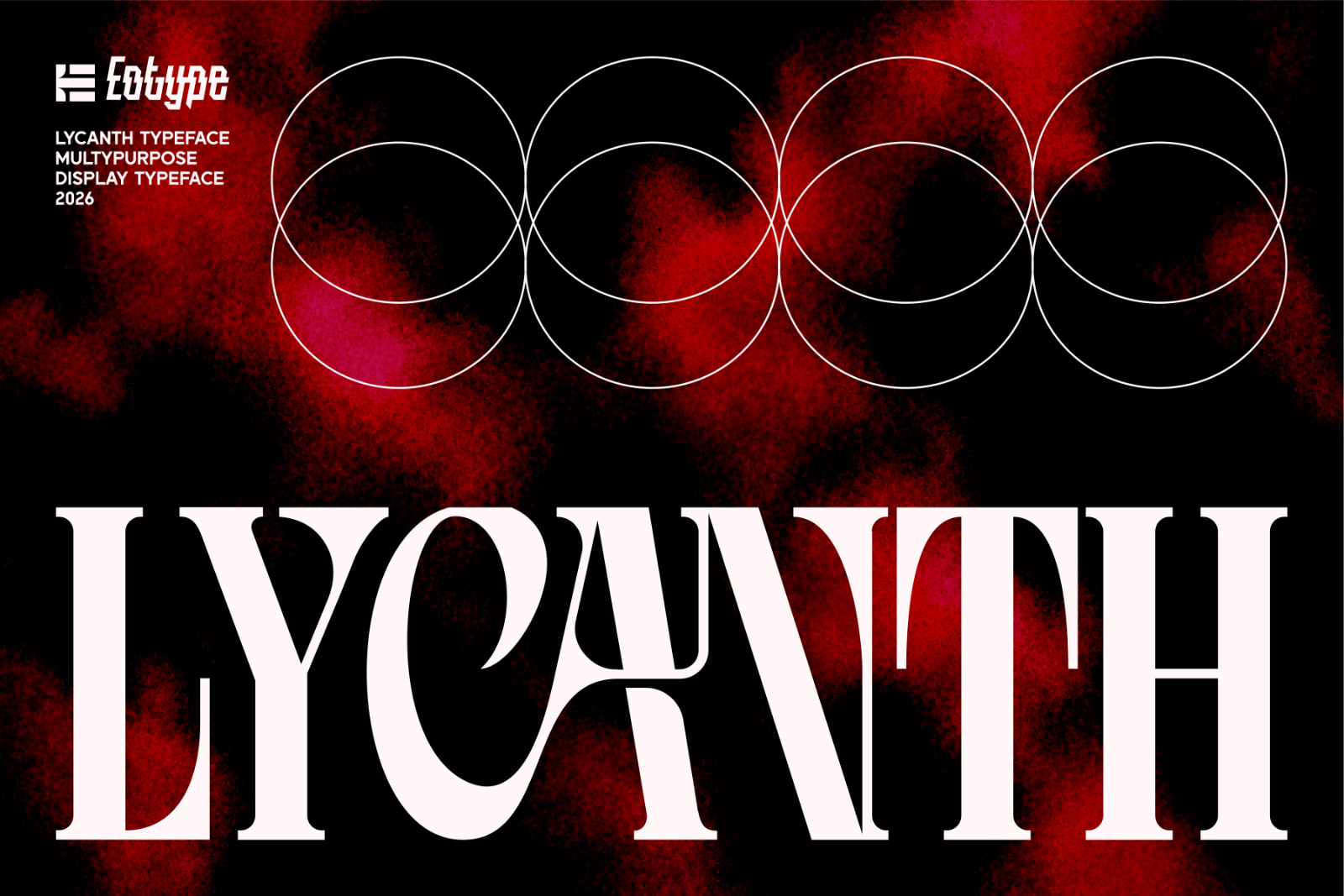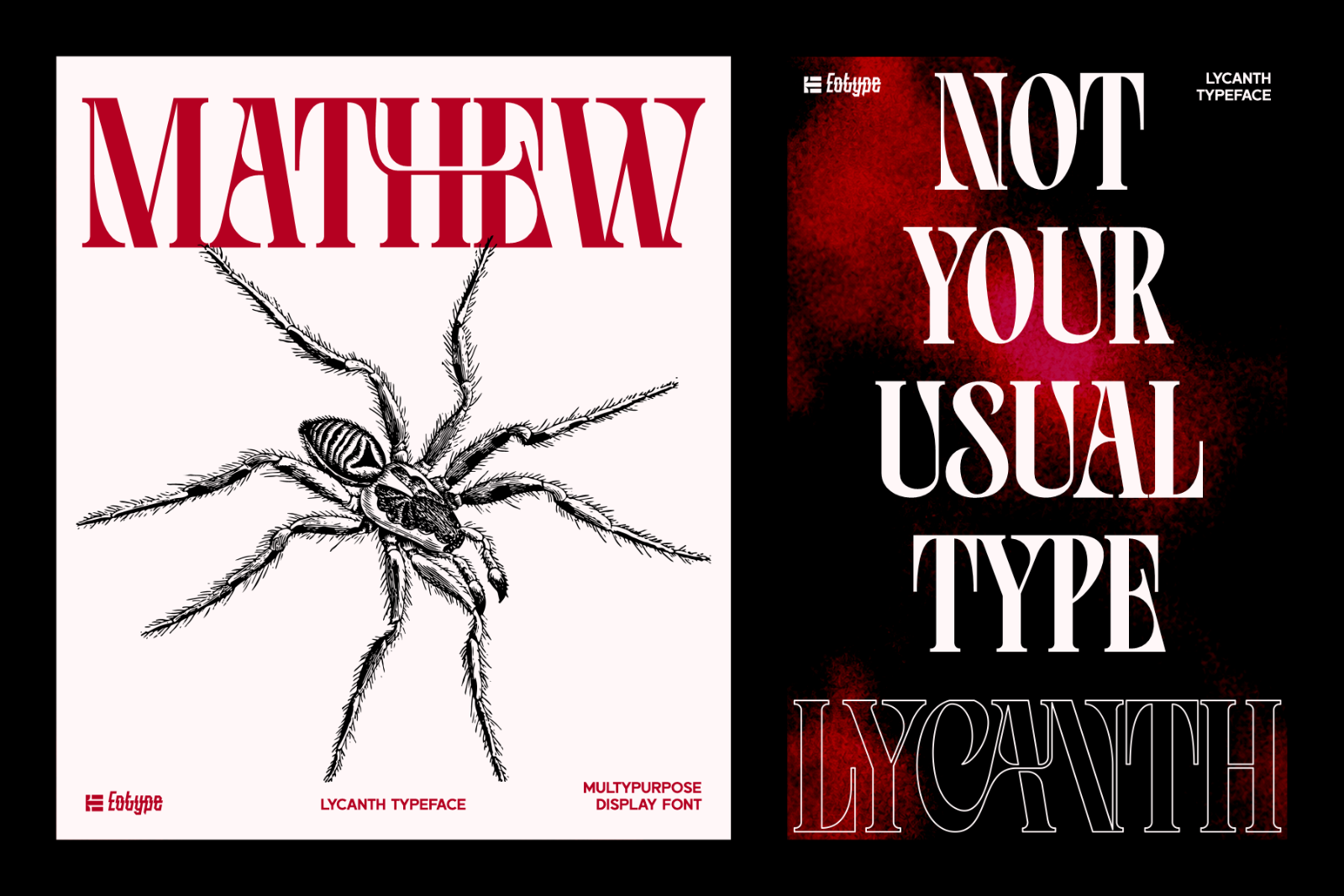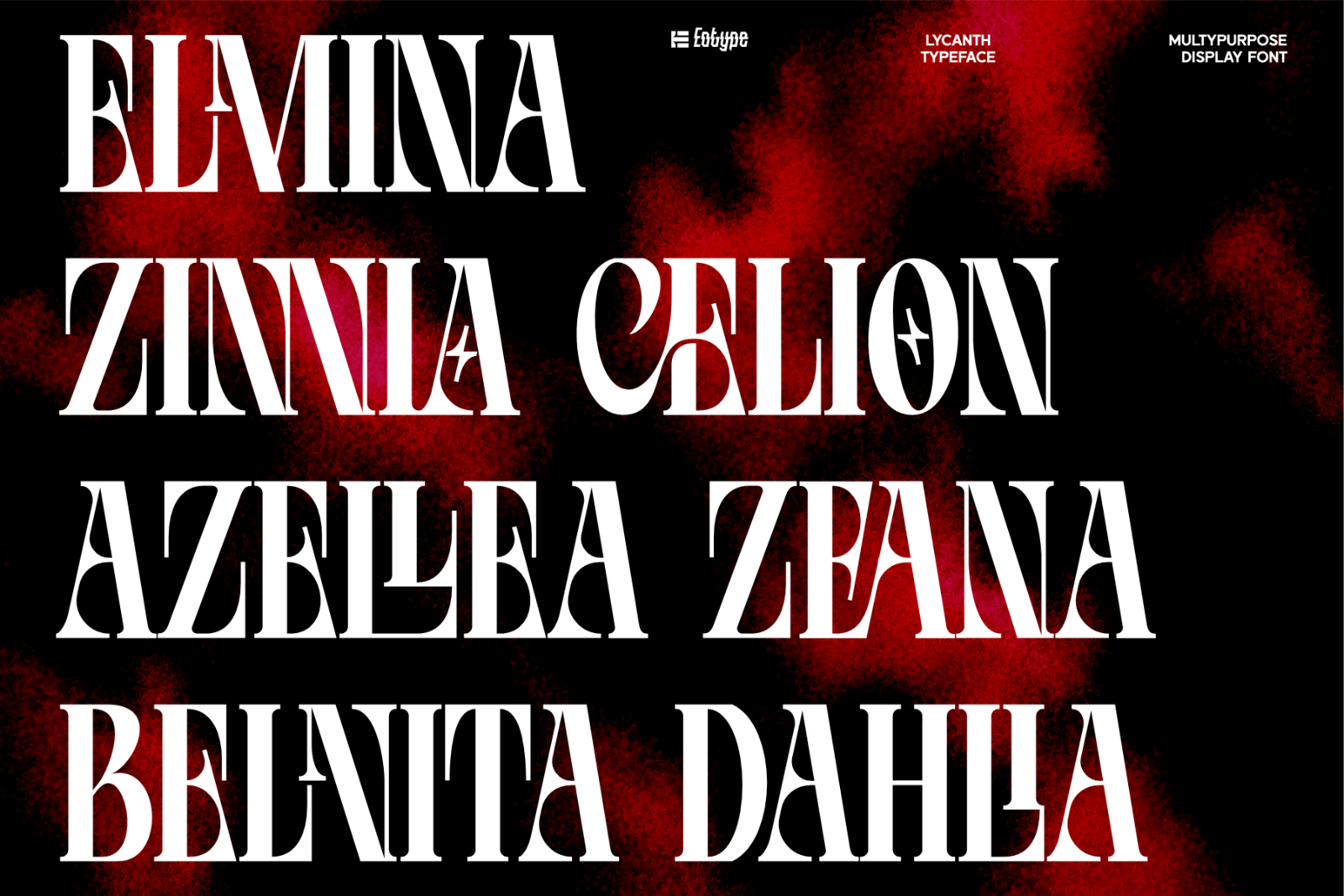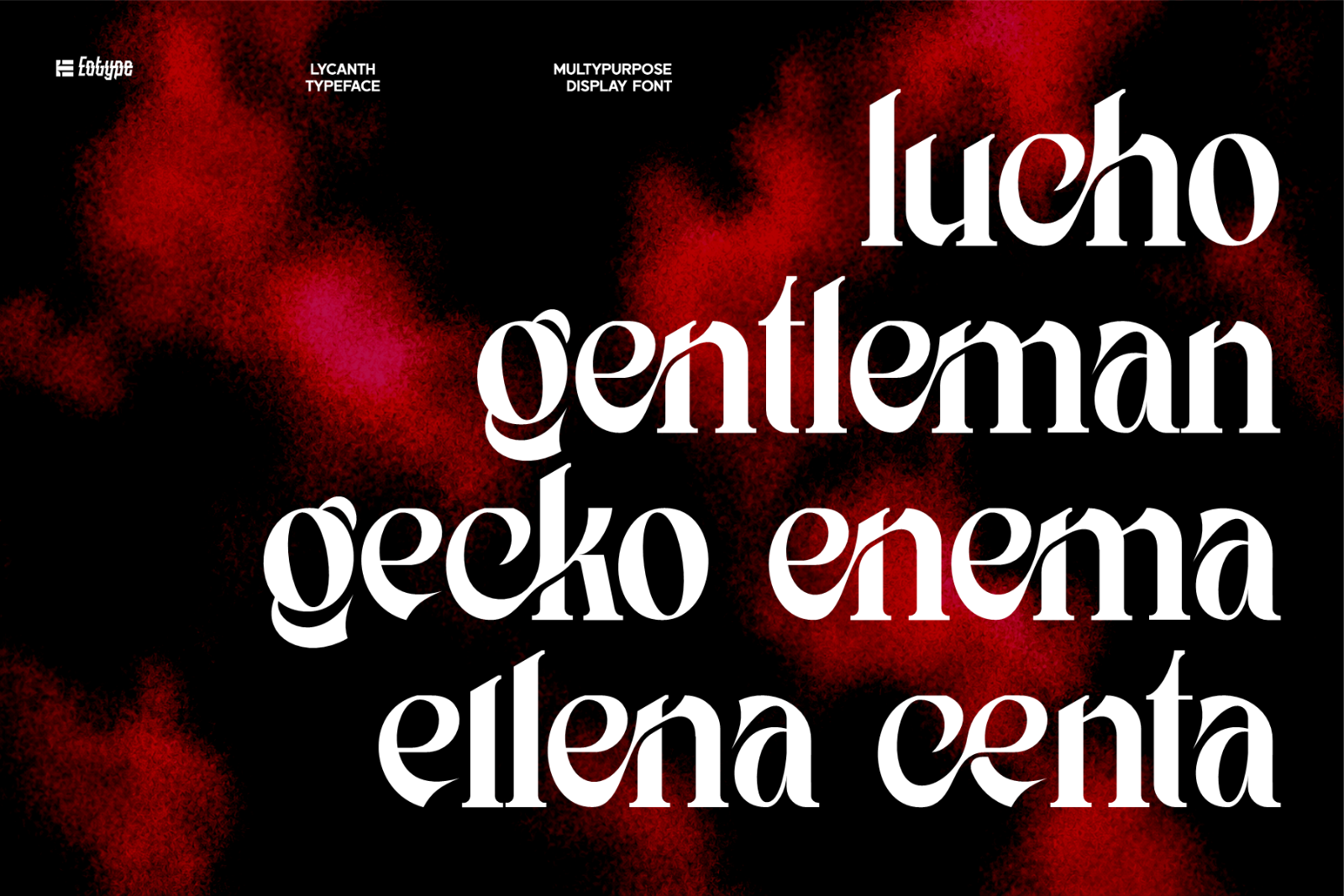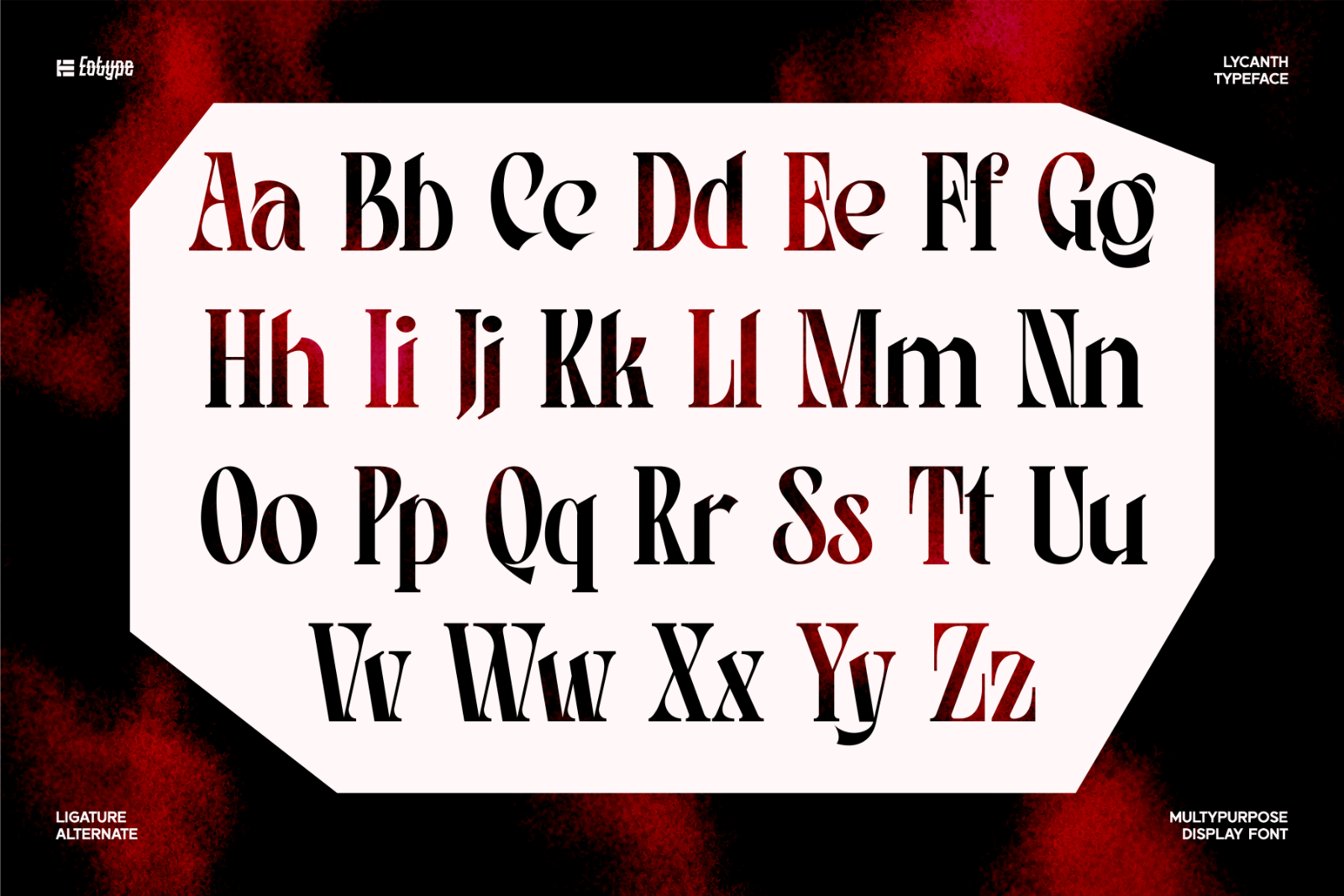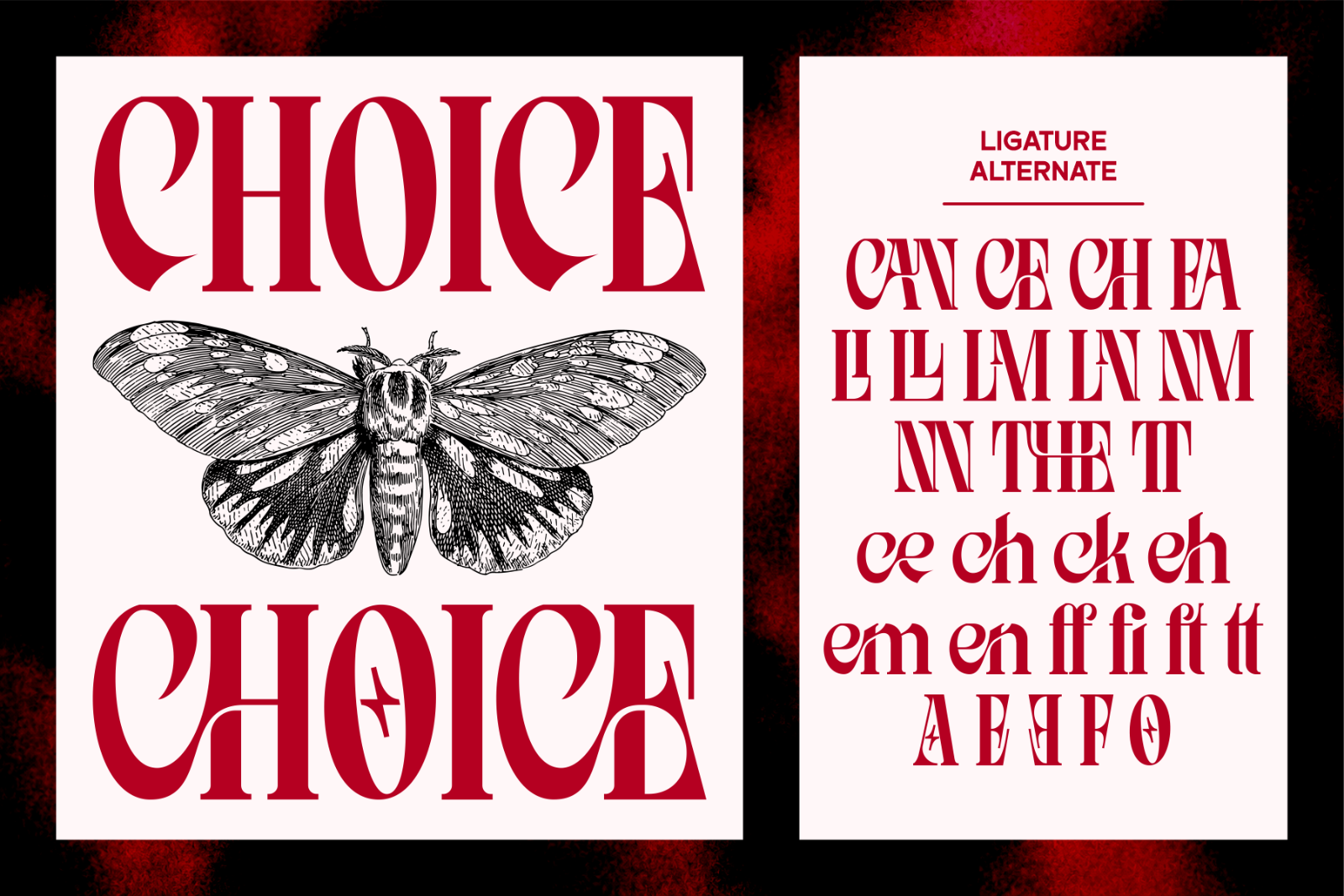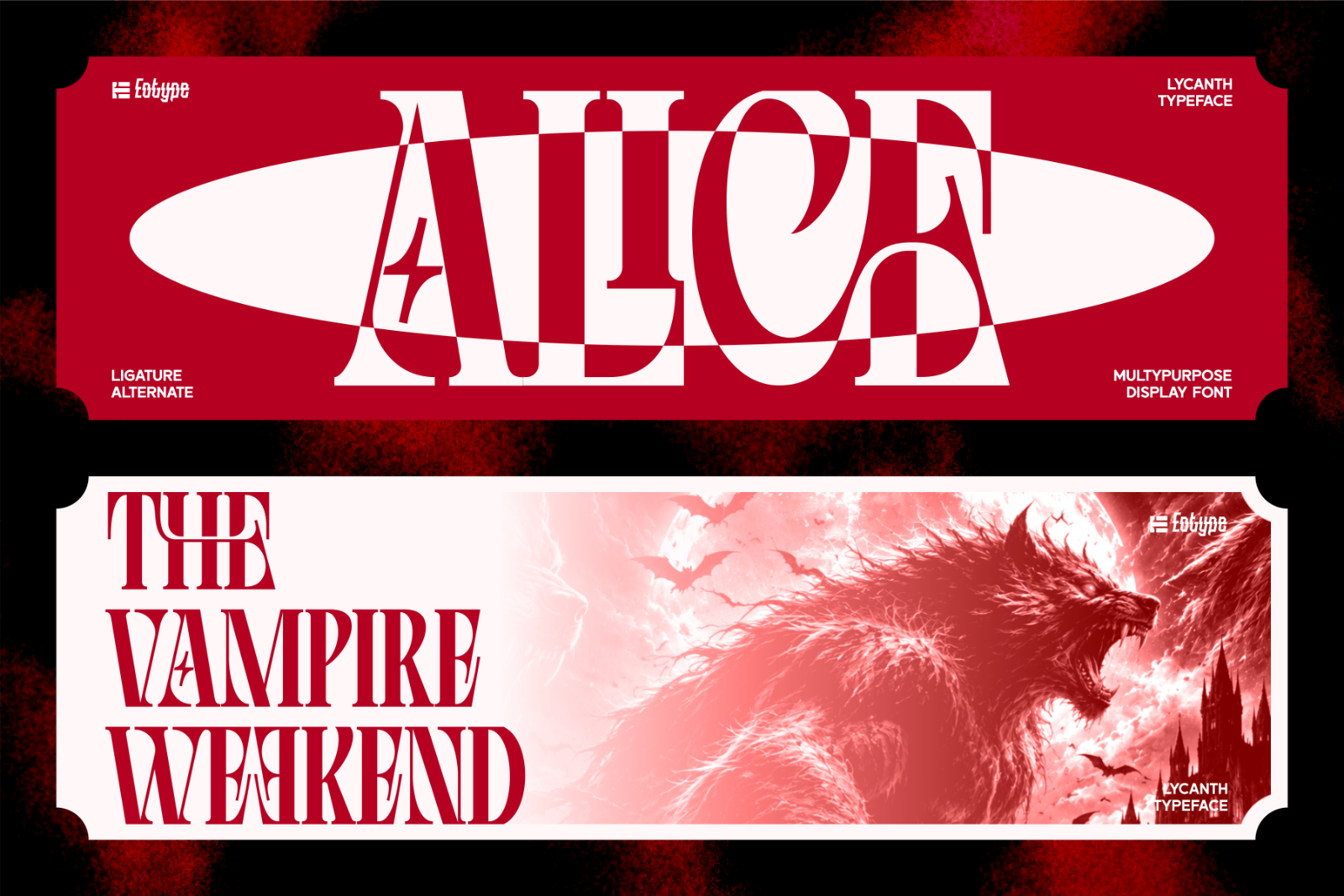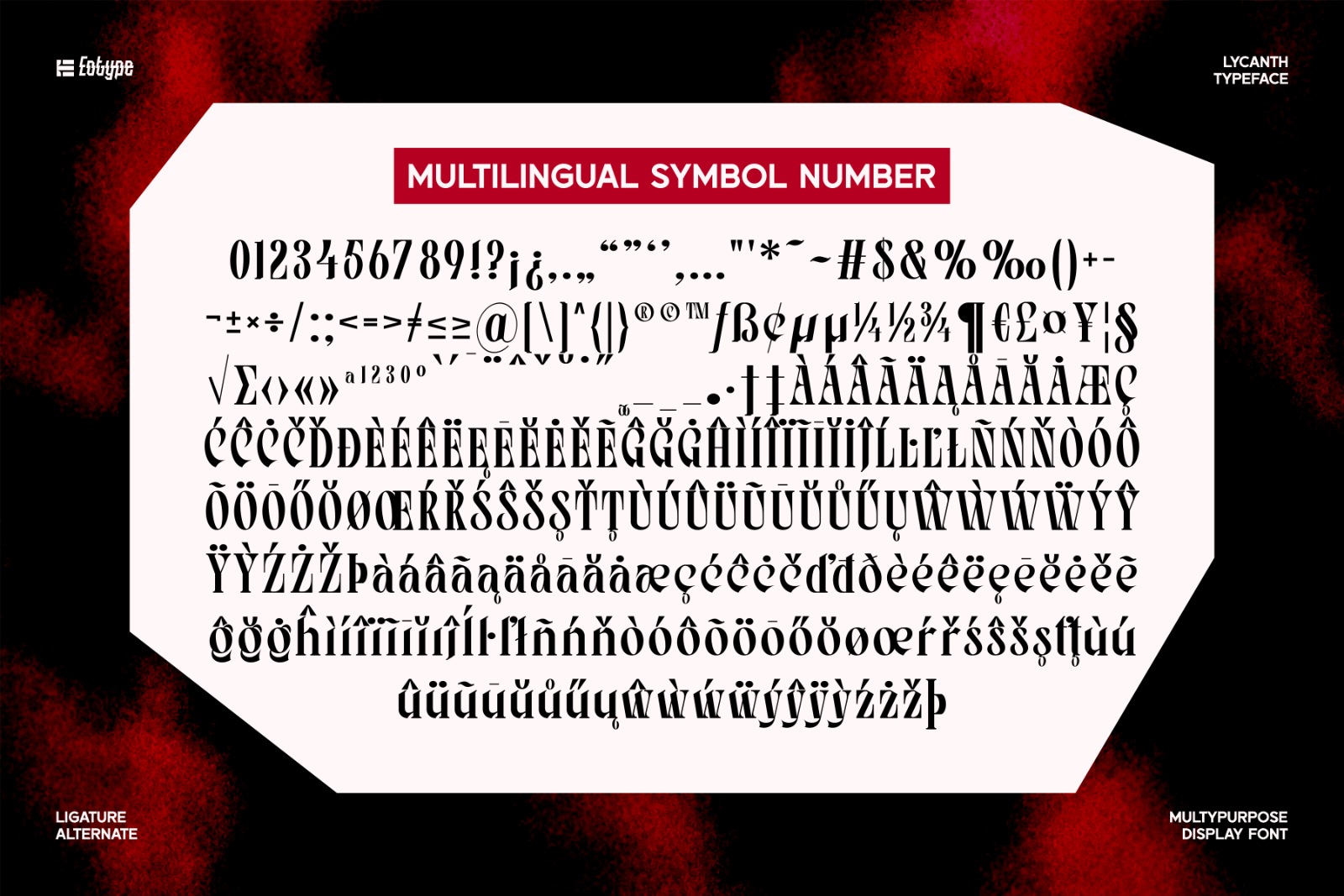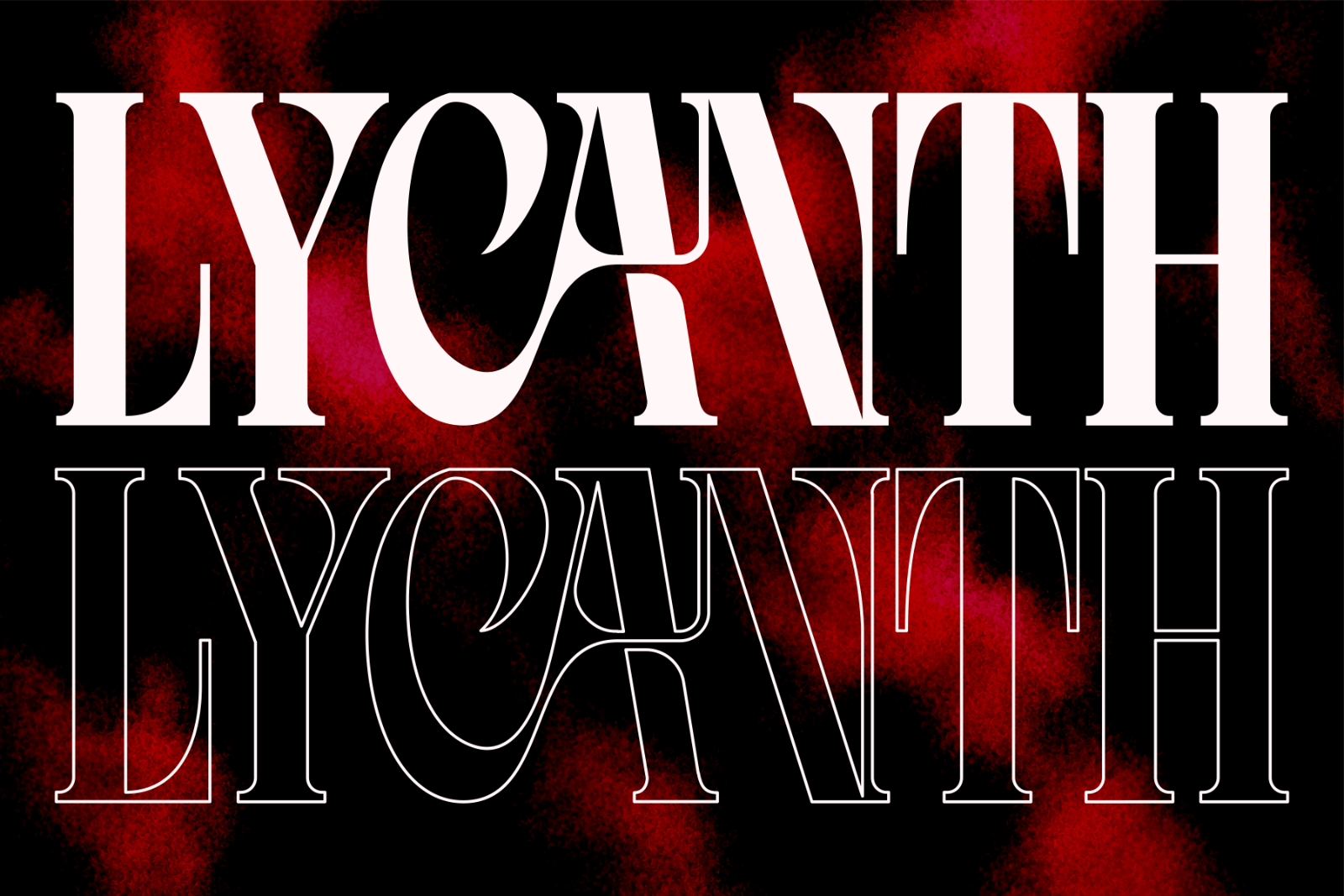
LYCANTH is a bold and expressive serif display typeface designed to bring a dramatic, sophisticated, and distinctive character to your typography projects.
Featuring high-contrast strokes, elegant curves, sharp details, and unconventional letterforms, LYCANTH combines the timeless elegance of classic serif typography with a contemporary editorial attitude. Its striking shapes are designed to create an immediate visual impact, making it perfect for headlines, branding, fashion, posters, magazines, album artwork, packaging, and other expressive display applications.
LYCANTH comes with a carefully designed collection of uppercase and lowercase characters, punctuation and symbols, ligatures, alternate glyphs, and multilingual support, giving you greater flexibility to create unique and sophisticated typographic compositions.
Whether you are creating a luxury fashion identity, an editorial layout, an eye-catching poster, or a bold brand campaign, LYCANTH brings a refined yet rebellious personality to your designs.
• High-contrast Serif Display style
• Elegant and dramatic letterforms
• Uppercase & lowercase characters
• Special symbols
• Ligatures
• Alternate glyphs